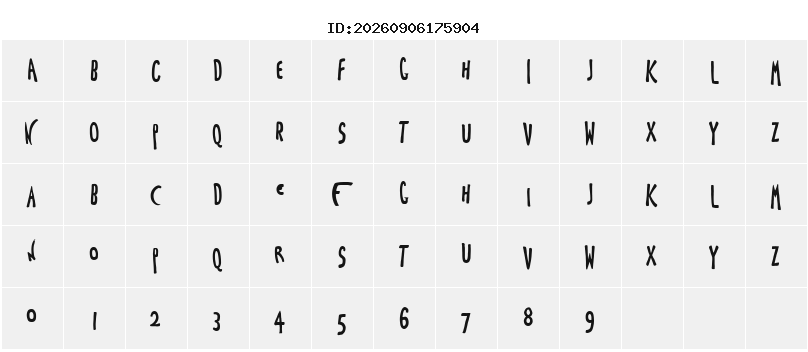
TLPierreBonnard Preview
• Font Name: TLPierreBonnard
• Full Font Name: TLPierreBonnard
• PostScript Name: TLPierreBonnard
About TLPierreBonnard.ttf
TLPierreBonnard.ttf is a modern, elegant sans-serif font designed for ultimate readability and visual harmony. Perfect for branding, headlines, web design, and print materials.